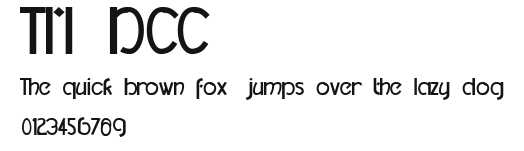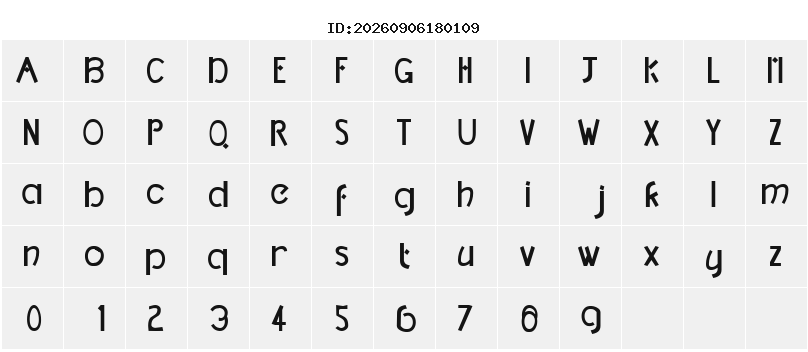
• Font Name: TM DCC
• Font ID: TM DCC Normal
• Full Font Name: TM DCC Normal
• PostScript Name: TMDCCNormal
• Character Count: 76
About TM DCC.ttf
TM DCC.ttf is a modern, elegant sans-serif font designed for ultimate readability and visual harmony. Perfect for branding, headlines, web design, and print materials.